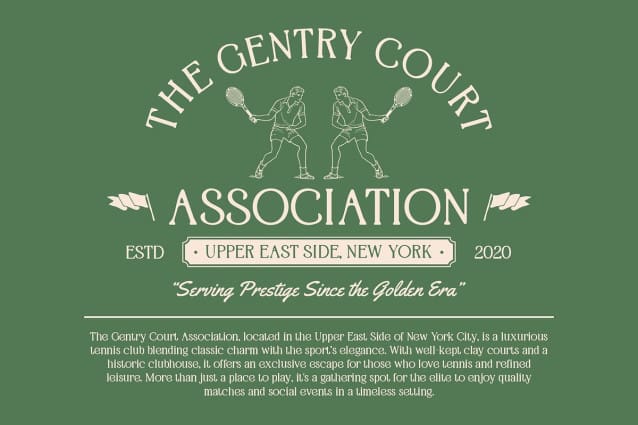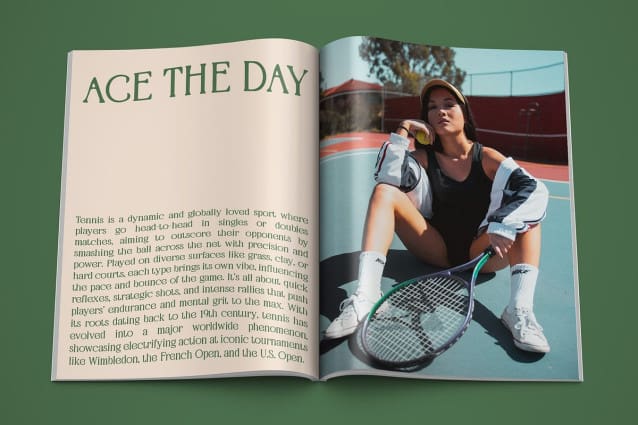
Febila Blur Font
Febila Blur Font is a modern serif font that blends clean, minimalist design with a subtle blur effect, offering a perfect balance of elegance and sophistication. Its simple yet refined letterforms create a polished, contemporary appearance, ideal for luxury branding and high-end editorial designs. The delicate blur effect adds a soft, artistic touch, giving the font a distinctive visual appeal while maintaining clarity.
Perfect for Luxury and High-End Design Febila Blur’s minimalist shapes and elegant proportions make it an excellent choice for projects that require a sleek, sophisticated feel. The added blur effect enhances the font’s uniqueness, adding depth and texture while keeping the overall look clean and modern. Whether for premium branding, elegant invitations, or creative projects, Febila Blur is designed to deliver a touch of refined artistry.
Balancing Timelessness with Modern Innovation Febila Blur achieves a harmonious combination of timeless elegance and modern design elements. The soft blur effect brings a contemporary twist to the classic serif style, making it stand out in today’s design trends. Ideal for designers looking to create a luxurious, yet innovative impression, this font delivers a distinctive touch that feels both sophisticated and fresh.